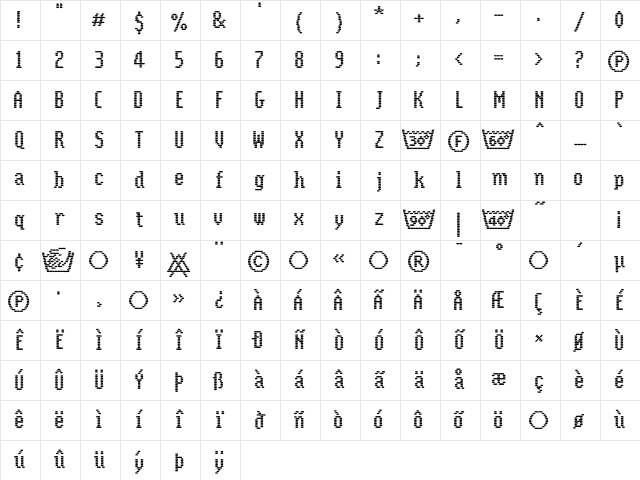
CoolWoolLL Regular
Design Context for CoolWoolLL
CoolWoolLL is a composed and adaptable typeface that performs quietly and consistently across a wide range of design contexts.
Pro Tip: Use CoolWoolLL in both headline and body roles to test its range before committing to a single application.